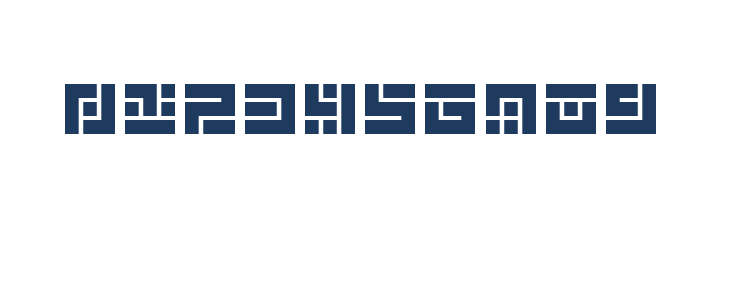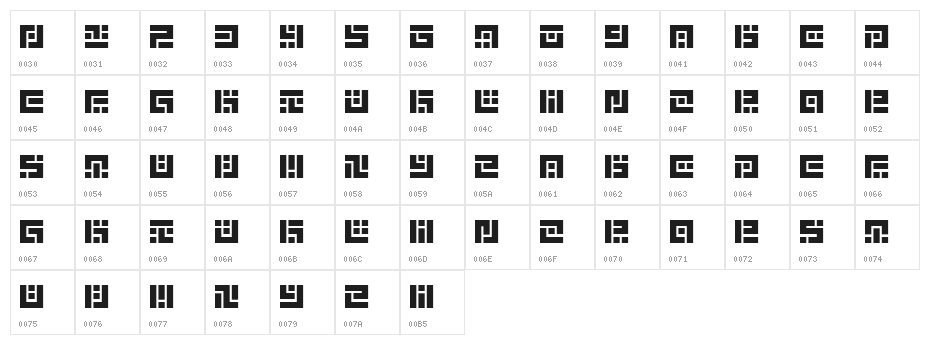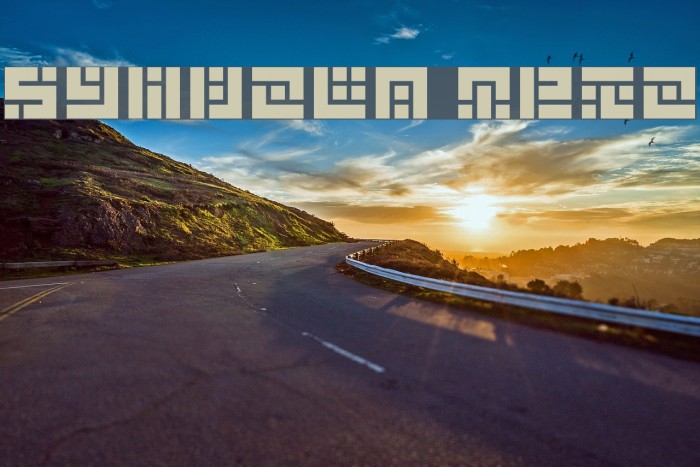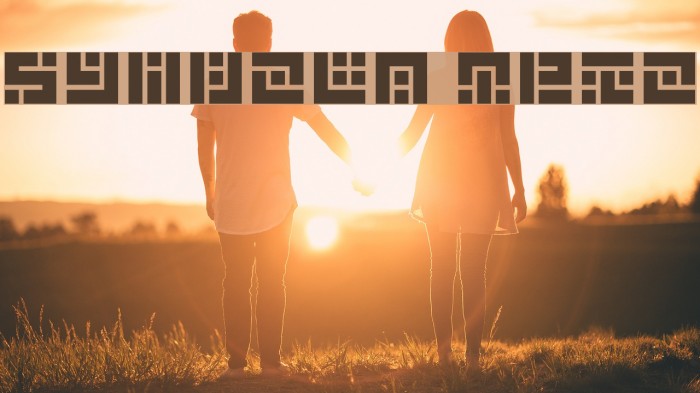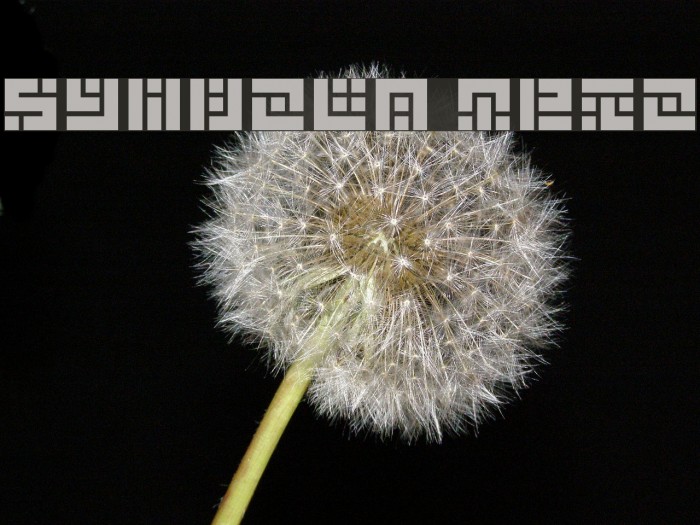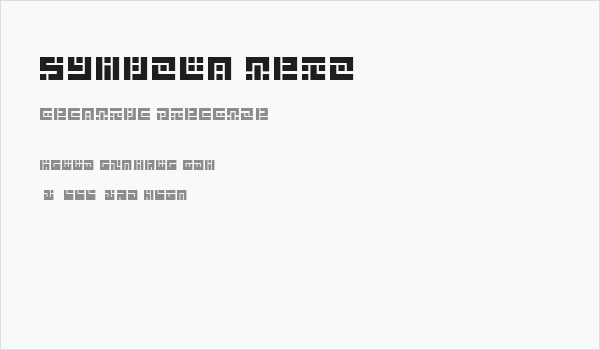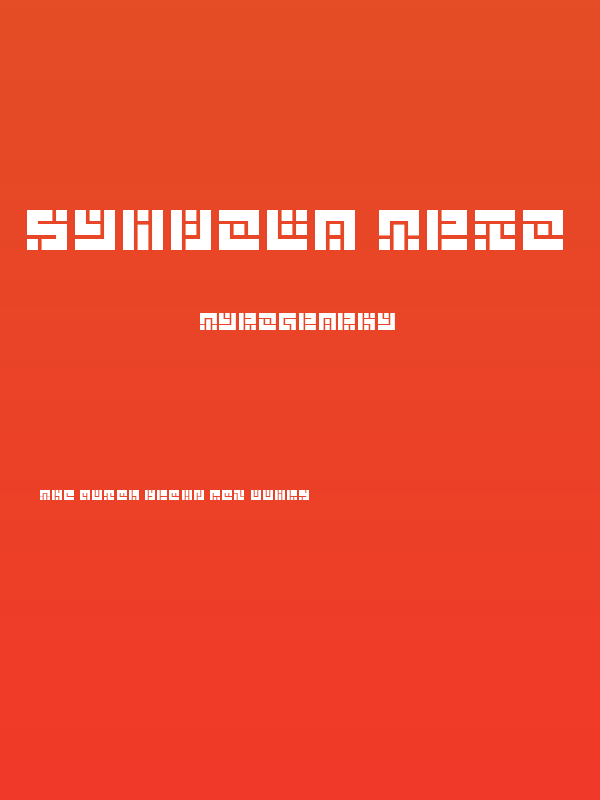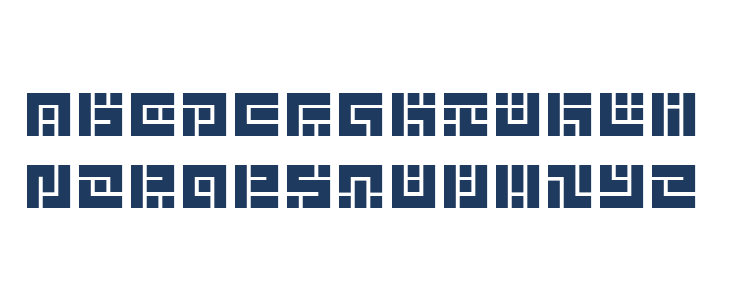
Symvola Trio Font
Symvola Trio Description
This font features a highly geometric and abstract design, characterized by its blocky and modular structure. Each character is composed of bold, square shapes with intricate internal patterns, creating a maze-like appearance. The font's style is reminiscent of digital or futuristic themes, making it stand out with its unique and artistic flair. The uniformity in the height and width of the characters contributes to a cohesive and structured look, while the internal detailing adds complexity and depth. This font is ideal for projects that require a modern, tech-inspired aesthetic.
| Proposed Projects | Ideal for digital art, tech-themed branding, video game interfaces, and futuristic posters. |